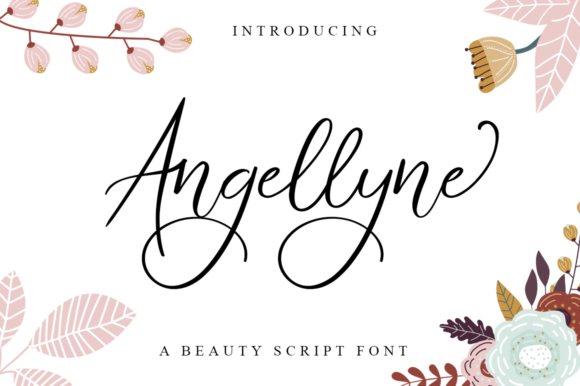
The Angellyne Script Font: Elevate Your Designs with Elegant Swashes
Have you ever been in the middle of a design project, and suddenly, you just can’t seem to find the right font? I recall a particularly frustrating experience when a client requested a “fancy” logo, and I was stuck with a bland, generic font. That’s when I discovered the Angellyne Script font, and it completely transformed my design. In this article, we’ll dive into the world of Angellyne Script, exploring its features, uses, and alternatives.
I’m excited to share my honest review of the Angellyne Script font. Here’s what I love:
- ✨ Elegant swashes that add a touch of sophistication to any design
- ✅ A casual, chic design style that’s perfect for a variety of projects
- 💫 Calligraphy-styled letters that instantly elevate your design
- 🎨 A versatile font that works well for both digital and print projects
While Angellyne Script is an amazing font, there are a few quirks to keep in mind:
- 🤔 Some users may find the font a bit too ornate for certain projects
- ⚠️ The font’s swashes can be overwhelming if not used thoughtfully
- Experiment with the font’s OpenType features, such as swashes and stylistic alternates, to add some flair to your design
The Designer Inspiration Behind Angellyne Script
While the true story behind Angellyne Script remains a mystery, it’s easy to imagine that the designer was inspired by the world of calligraphy and elegant handwriting. Perhaps they spent countless hours studying the works of famous calligraphers, or experimenting with different lettering styles. Whatever the inspiration, the result is a stunning font that’s sure to elevate any design.
| Author | Haksen |
| What is the Angellyne Script font best used for? | The Angellyne Script font is perfect for designs that require an elegant, sophisticated touch, such as logos, branding materials, and wedding invitations. |